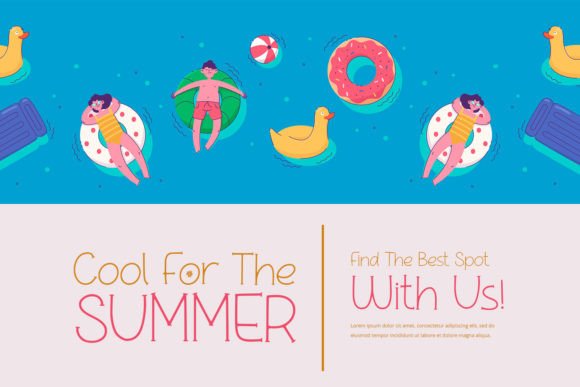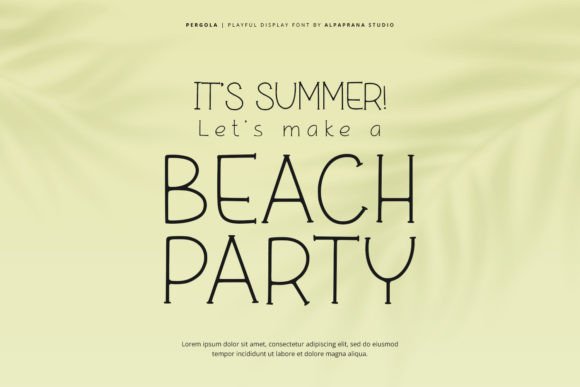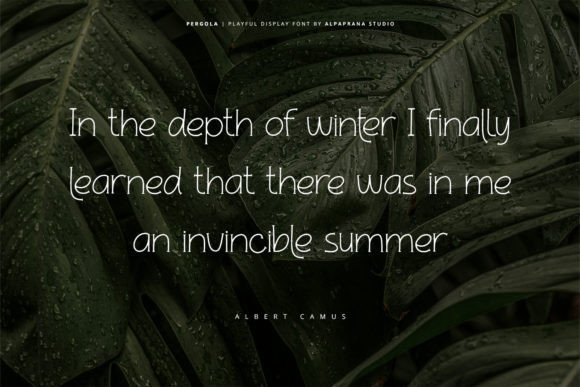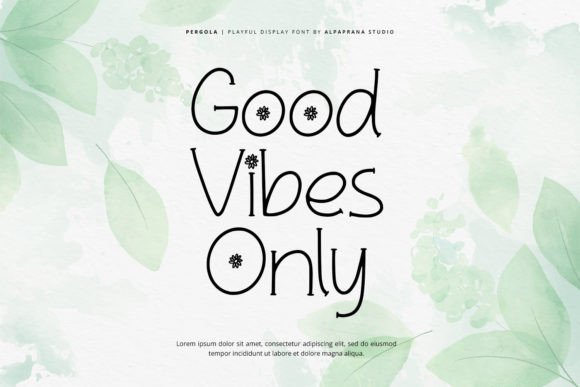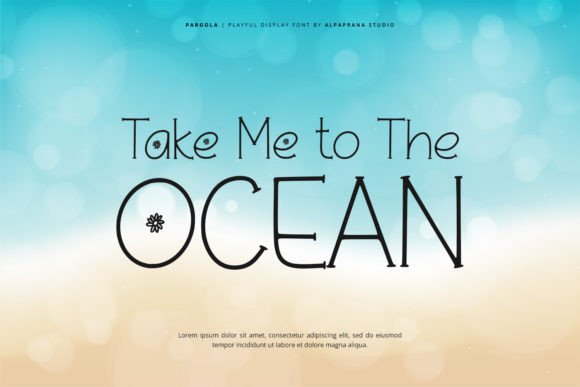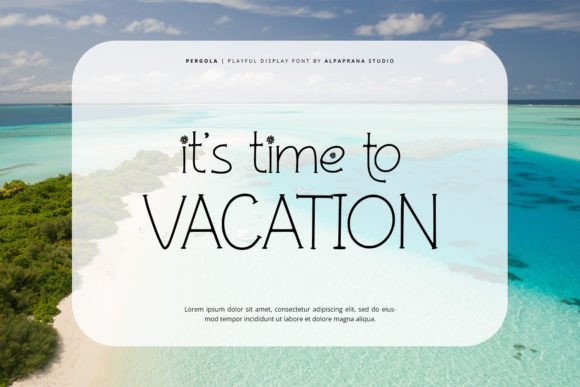
Introduction to Pergola Font
Pergola is a playful display font with authentic and playful feels.
It will be perfectly used for branding, logo design, lettering, logotype, clothing, poster, magazine, packaging, posters, shopping bags, t-shirts, book covers, photography, special events, and more .